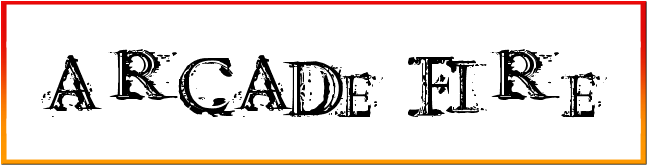
Arcade fire Font
Arcade fire is a fancy font. It's a decorative display font with plenty of personality, made to grab attention. It's a free download, and you can try it with your own text in the preview above first.
What You Can Type With Arcade fire
Arcade fire covers the full alphabet in upper and lowercase, plus all ten numbers, so you can set names, dates and prices without switching fonts. Everyday marks like &, !, ? and @ are there too. Thanks to its accented letters, it also works for Spanish, French, German, Portuguese and Italian, not just English. On top of that, it includes Greek and Cyrillic characters.
Where Arcade fire Works Best
Designers usually reach for fonts like Arcade fire when they're making posters, logos and eye-catching headlines. Use it for one standout word or headline and let simpler fonts handle the rest.
Does Arcade fire support accented letters?
Yes. Arcade fire includes the accented letters needed for Spanish, French, German, Portuguese and Italian, so it works for more than just English.